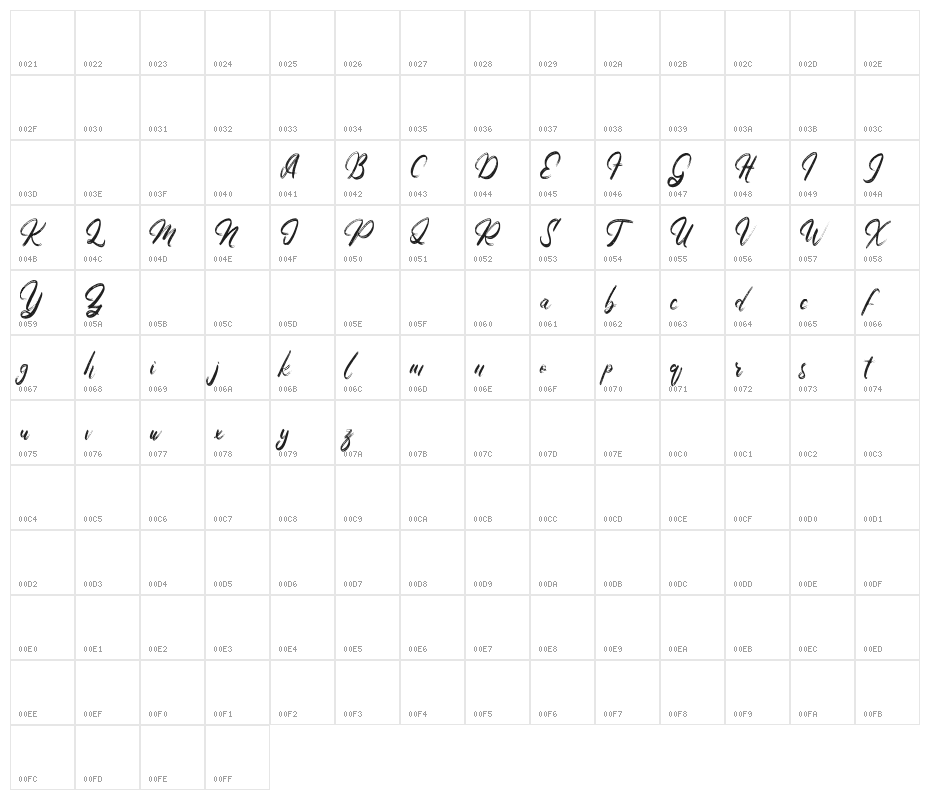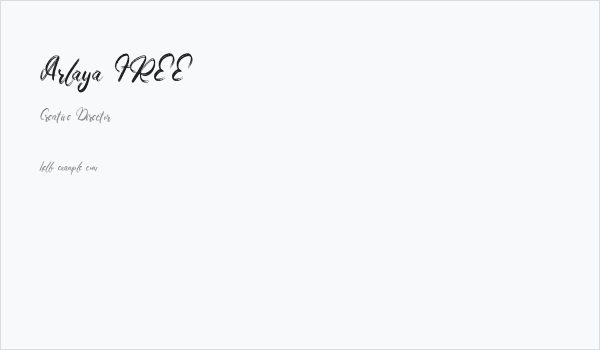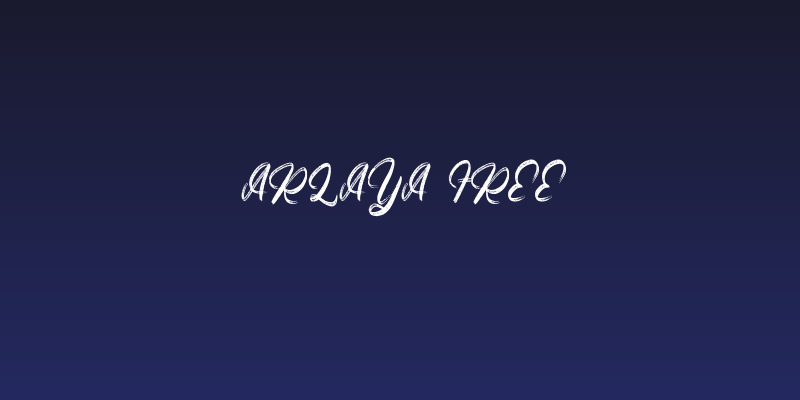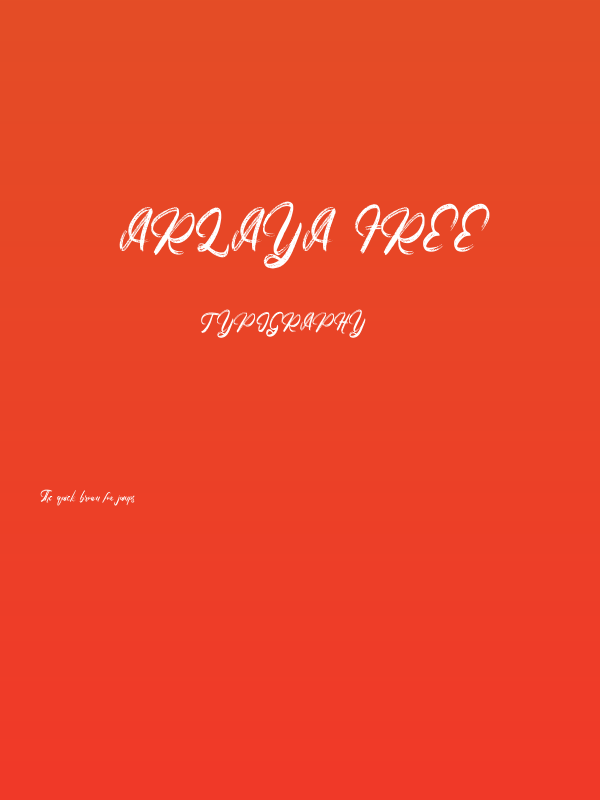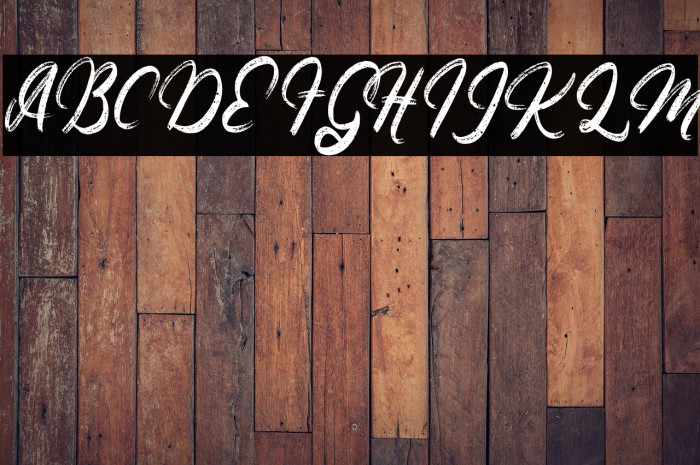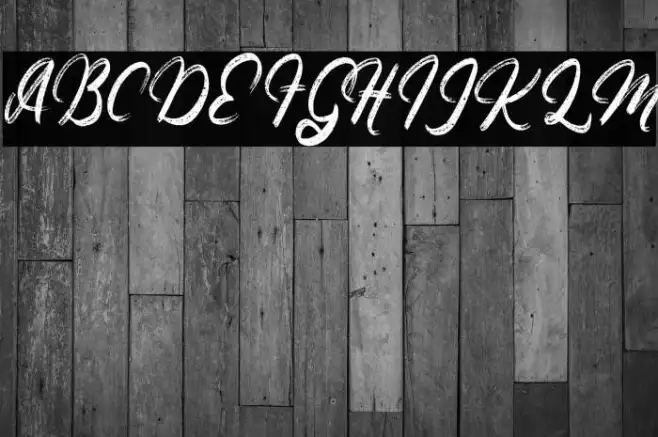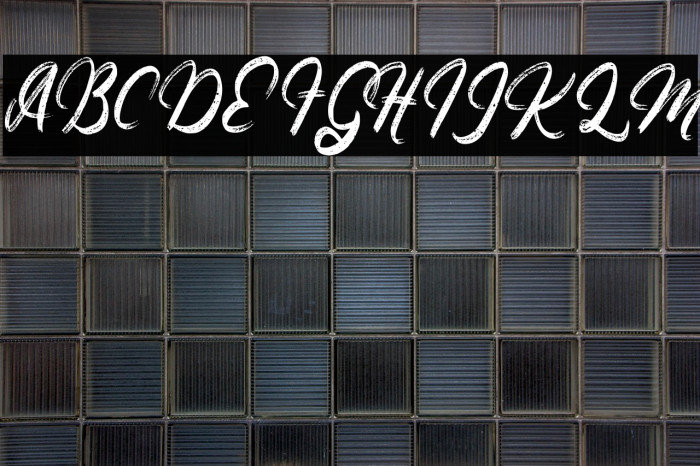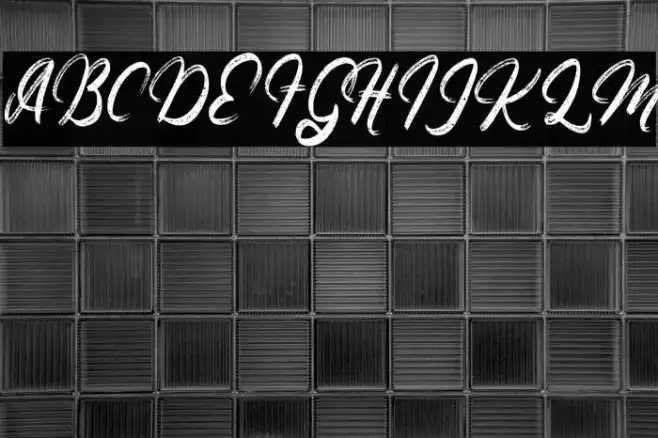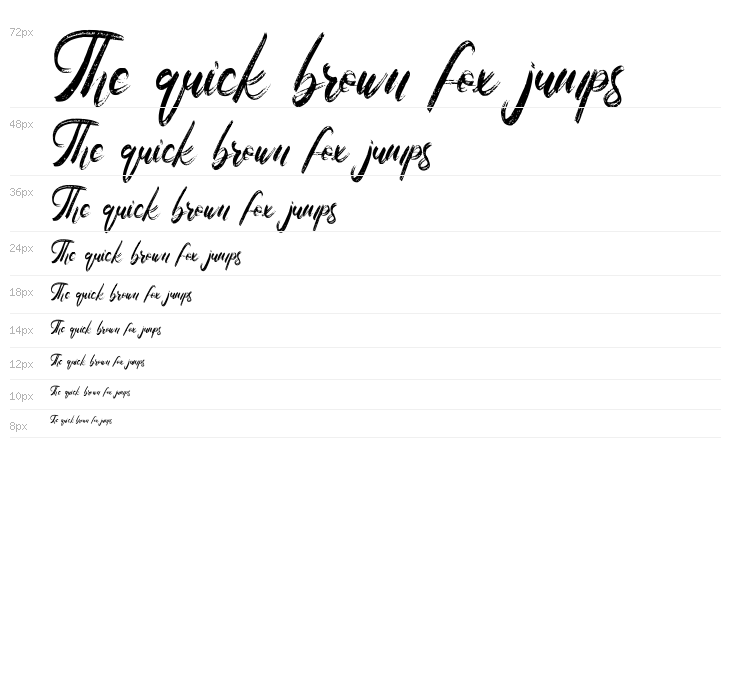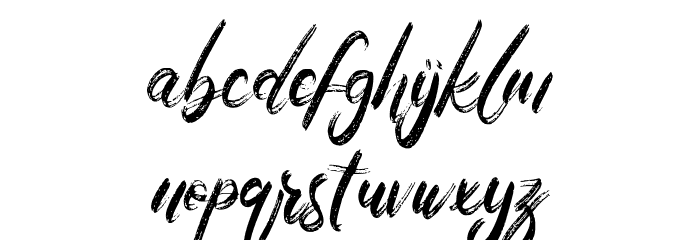
Arlaya FREE Font
Arlaya FREE Description
This font features a dynamic and expressive brush script style, characterized by its fluid and flowing letterforms. The strokes are bold and textured, giving a hand-painted appearance that adds a personal touch to any design. The uppercase letters are elegantly crafted with sweeping curves and loops, while the lowercase letters maintain a consistent rhythm and balance. The font's organic feel is enhanced by the irregularities in stroke width, creating a sense of movement and energy. It's perfect for projects that require a touch of creativity and individuality.